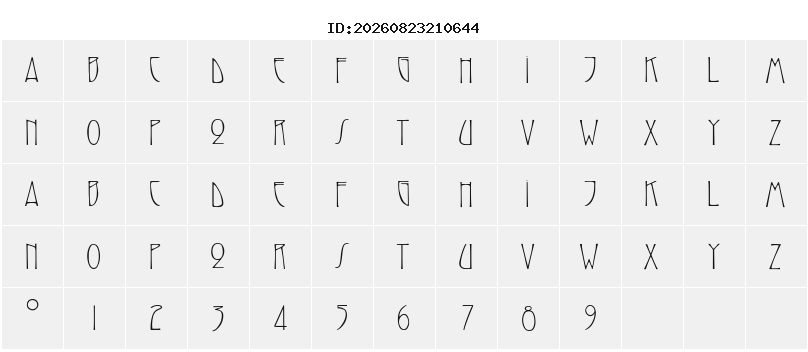
SarahCaps Preview
• Font Name: SarahCaps
• Full Font Name: SarahCaps
About SarahCaps.ttf
SarahCaps.ttf is a modern, elegant sans-serif font designed for ultimate readability and visual harmony. Perfect for branding, headlines, web design, and print materials.